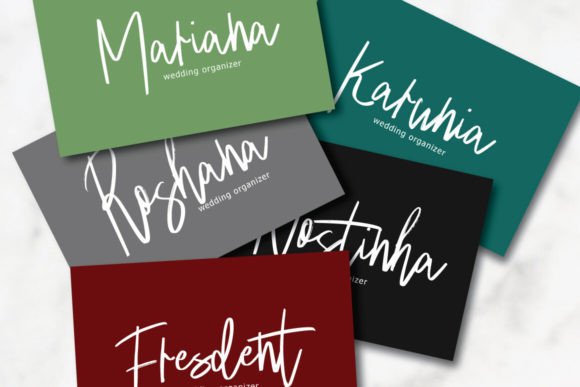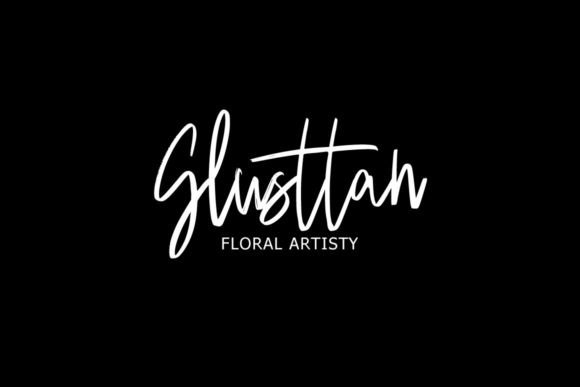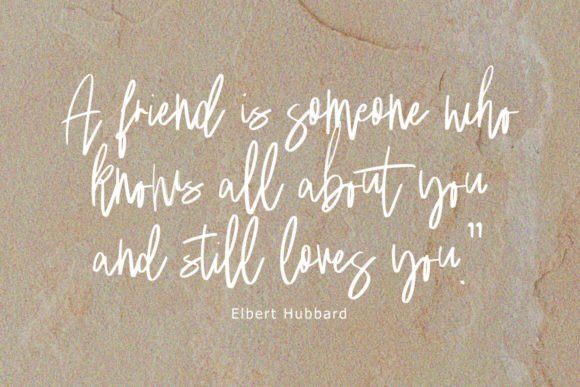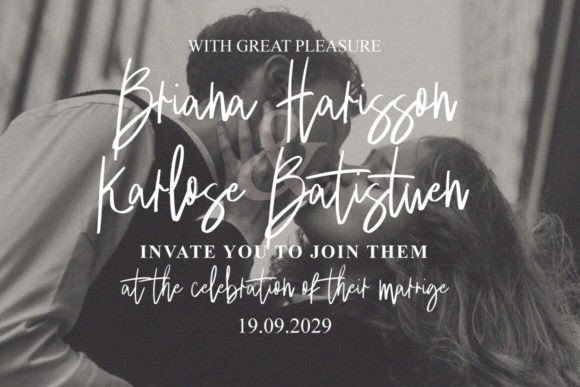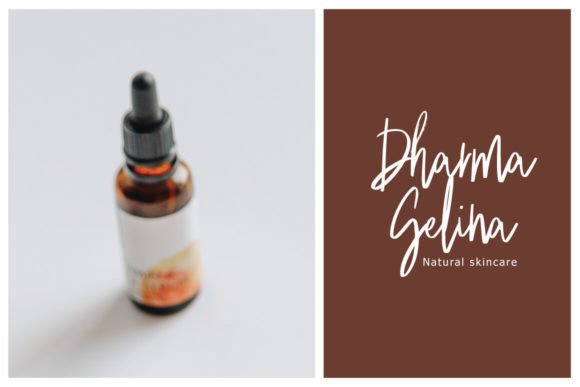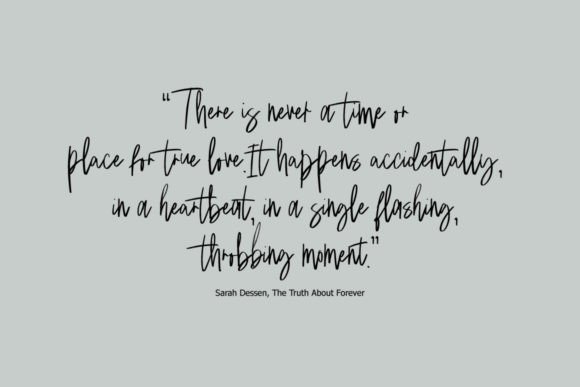
Introduction to Pakody Font
As I sat at my desk, staring at a blank sheet of paper, I was determined to bring my creative project to life. The blank page seemed daunting, but I knew exactly what I needed – a font that would add that extra oomph to my design. And then, I stumbled upon the Pakody Font, a game-changer that has since become my go-to design resource.
The Pakody Font is more than just a font – it’s a design powerhouse that offers a range of features that make it a must-have for any designer. With over 200 glyphs, this high-quality font is perfect for creating unique and eye-catching designs. From invitations to branding materials, business cards to posters, the Pakody Font is a versatile design tool that can be used for a wide range of creative projects.
What sets the Pakody Font apart is its transparent background, making it easy to use with any design software, including Adobe Illustrator, Adobe InDesign, and even Microsoft Word. And with PUA encoding, accessing the font’s amazing glyphs and ligatures is a breeze, making it a valuable asset for any designer looking to elevate their designs to the next level.
Pakody Font Key Features
- Includes a variety of font styles with transparent backgrounds for versatile usage.
- Unique characteristics include elegant lines, precise shapes, and a touch of sophistication.
- Suitable for various design applications, including logos, typography, and branding materials.
- Perfect for designers seeking a high-quality design resource for their creative project.
Honest Review: Pakody Font
- ✨ The font’s unique, playful style is perfect for adding a touch of personality to my designs.
- ✨ The transparent background makes it easy to integrate with any image or color scheme.
- ✨ The font’s versatility allows me to use it for a wide range of creative projects, from logos to social media graphics.
However, I do have a few concerns:
- ⚠️ The font’s file size is a bit larger than I’d like, which can impact loading times for some projects.
- ⚠️ Some users may find the font’s style a bit too bold or overpowering for certain designs.
Overall, I’m really impressed with the Pakody Font. Its unique style and high-quality design make it a valuable resource for any creative project. While it may have a few limitations, I believe it’s definitely worth considering for your next design project.
Getting the Most Out of Pakody Font
To get the most out of the Pakody Font, use it with a transparent background to create a clean and modern design. You can also use the Pakody Font in combination with other design elements, such as images and graphics, to create a unique and eye-catching design.
Common Use Cases for Pakody Font
The Pakody Font is perfect for a variety of design projects, including logos, graphics, presentations, and documents. It’s also great for creating custom designs for social media, websites, and other online platforms.